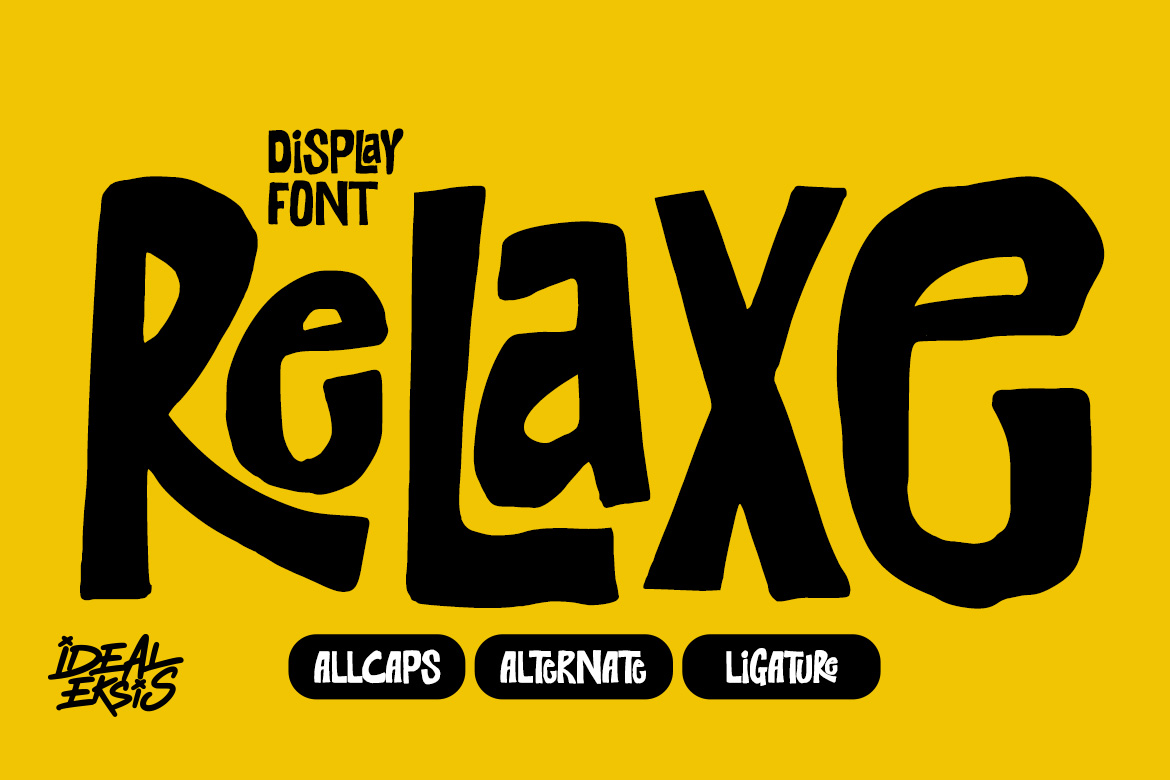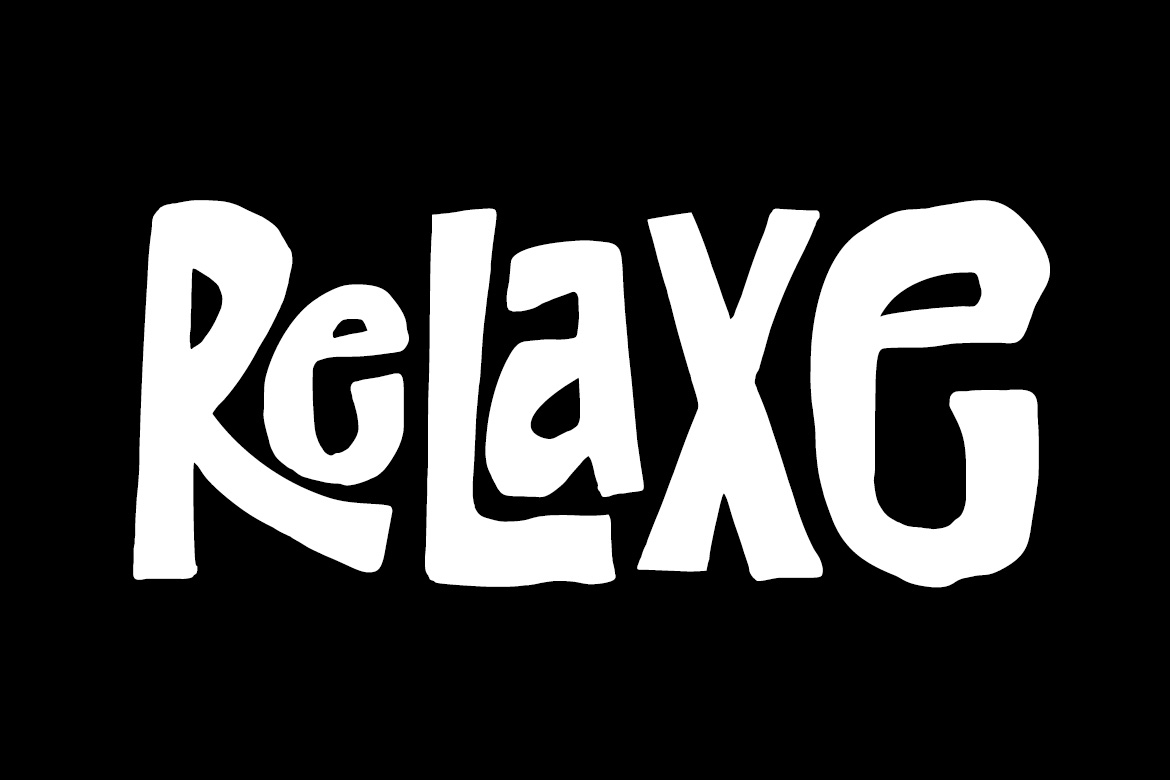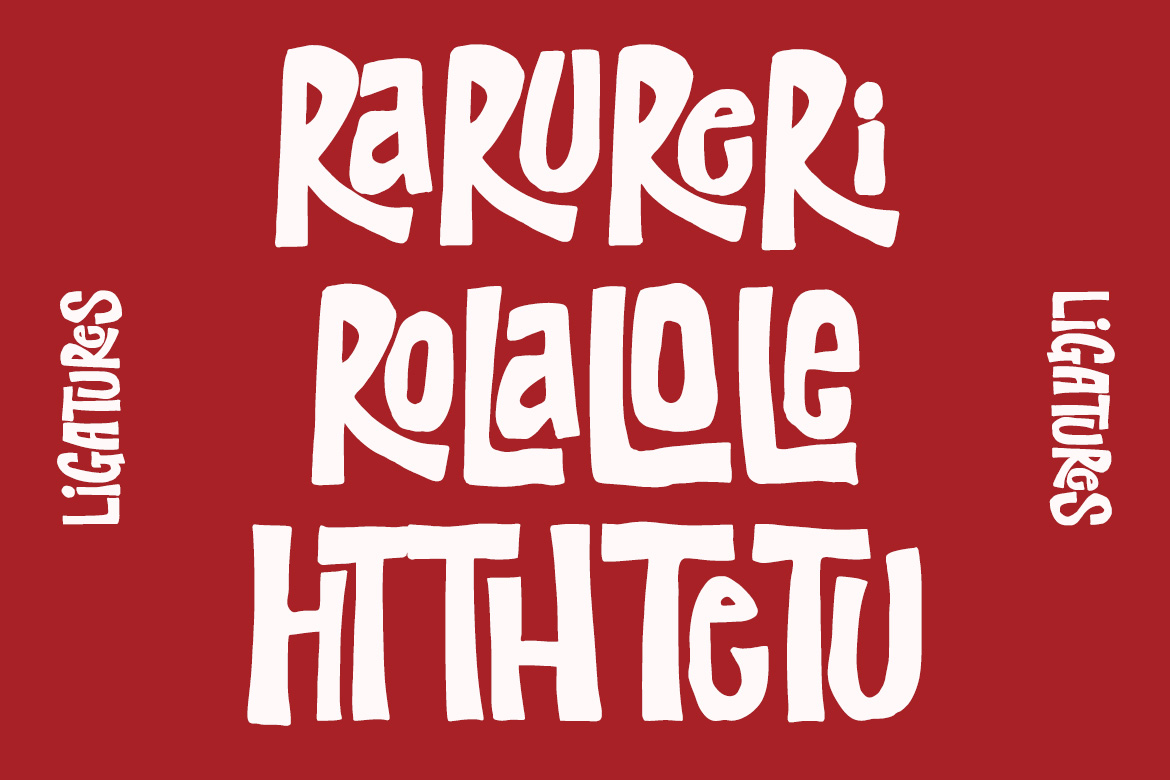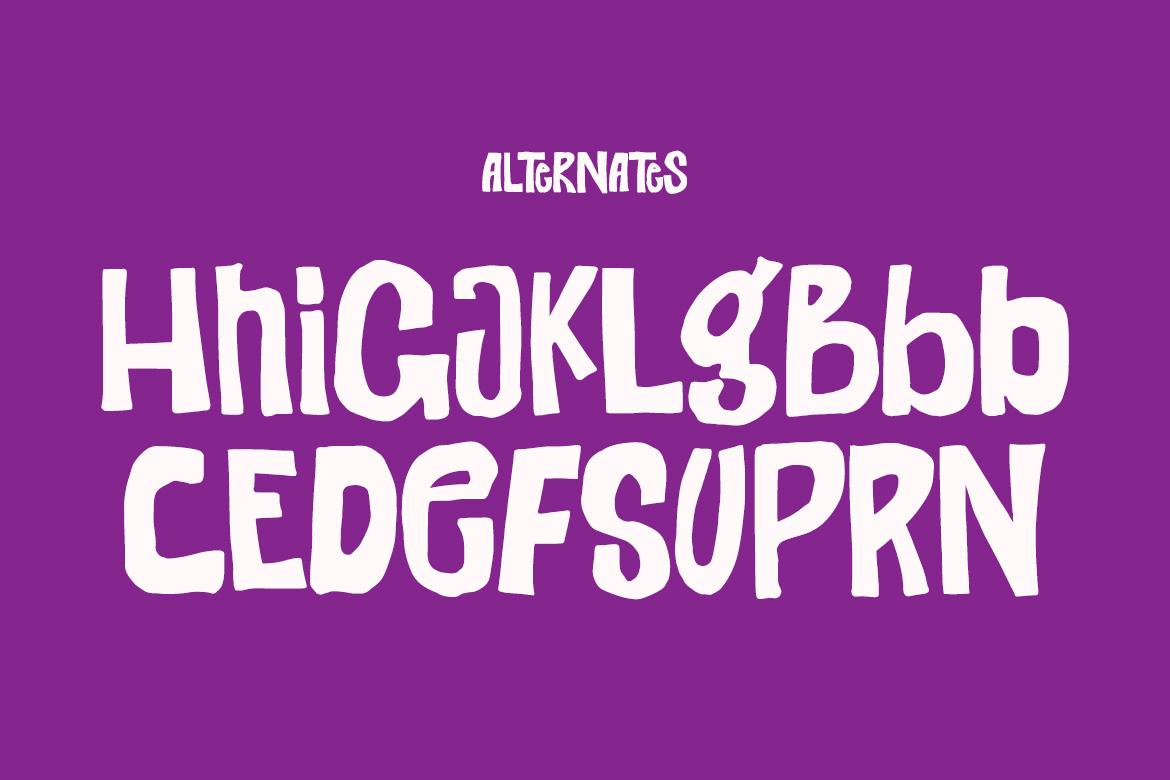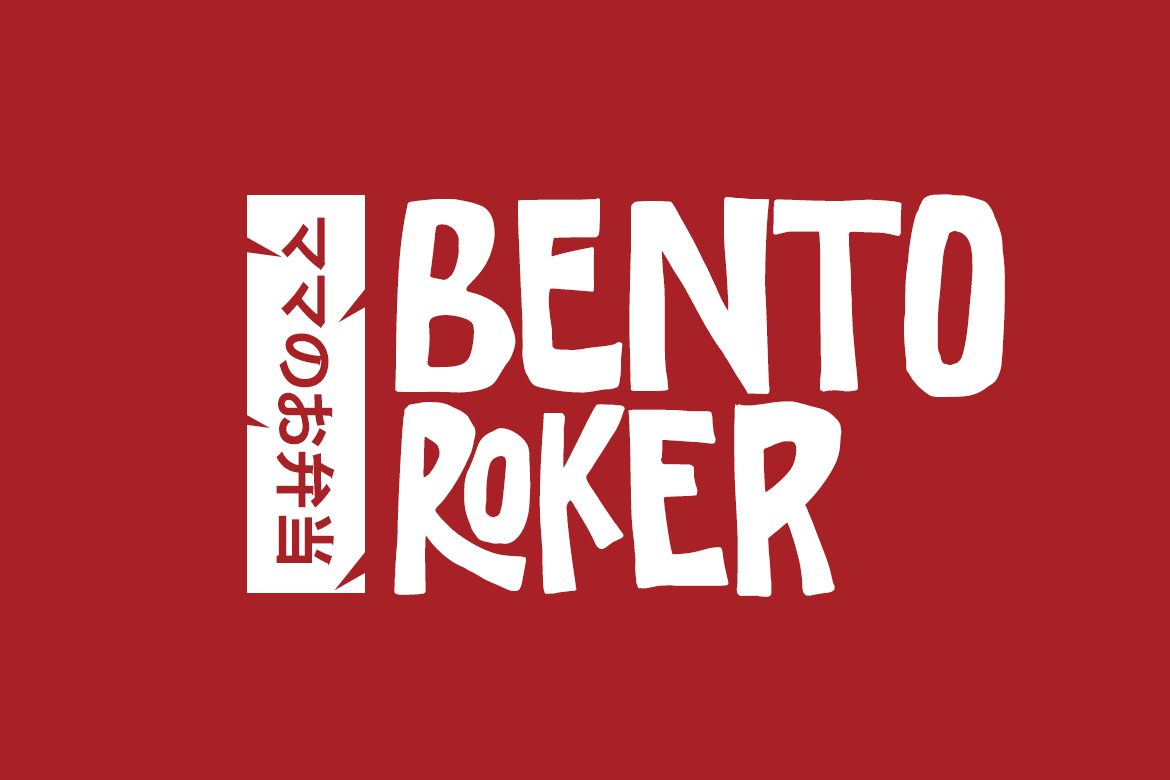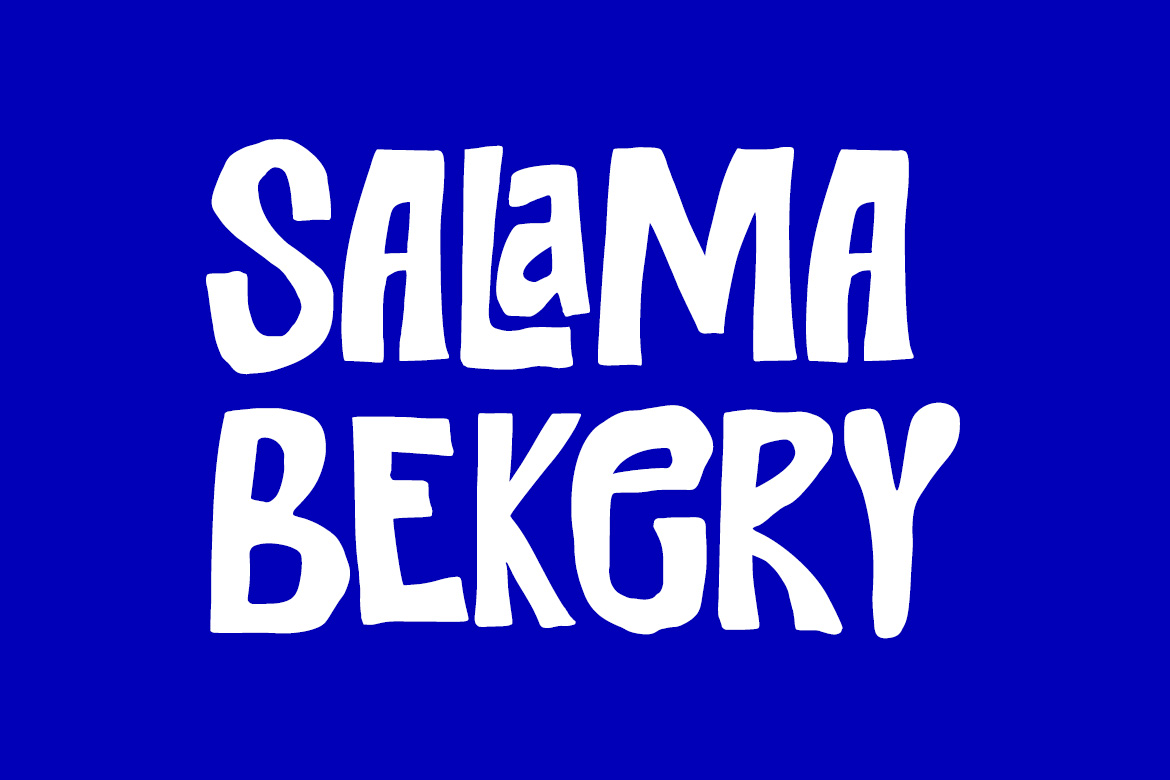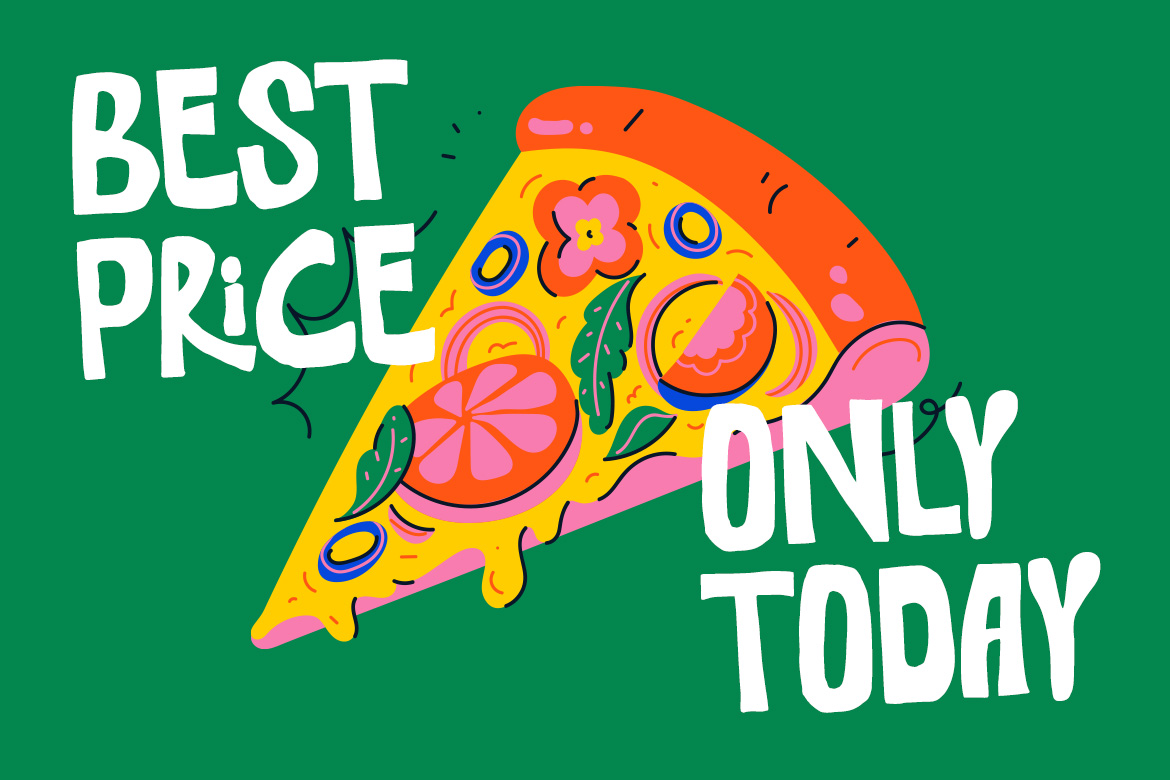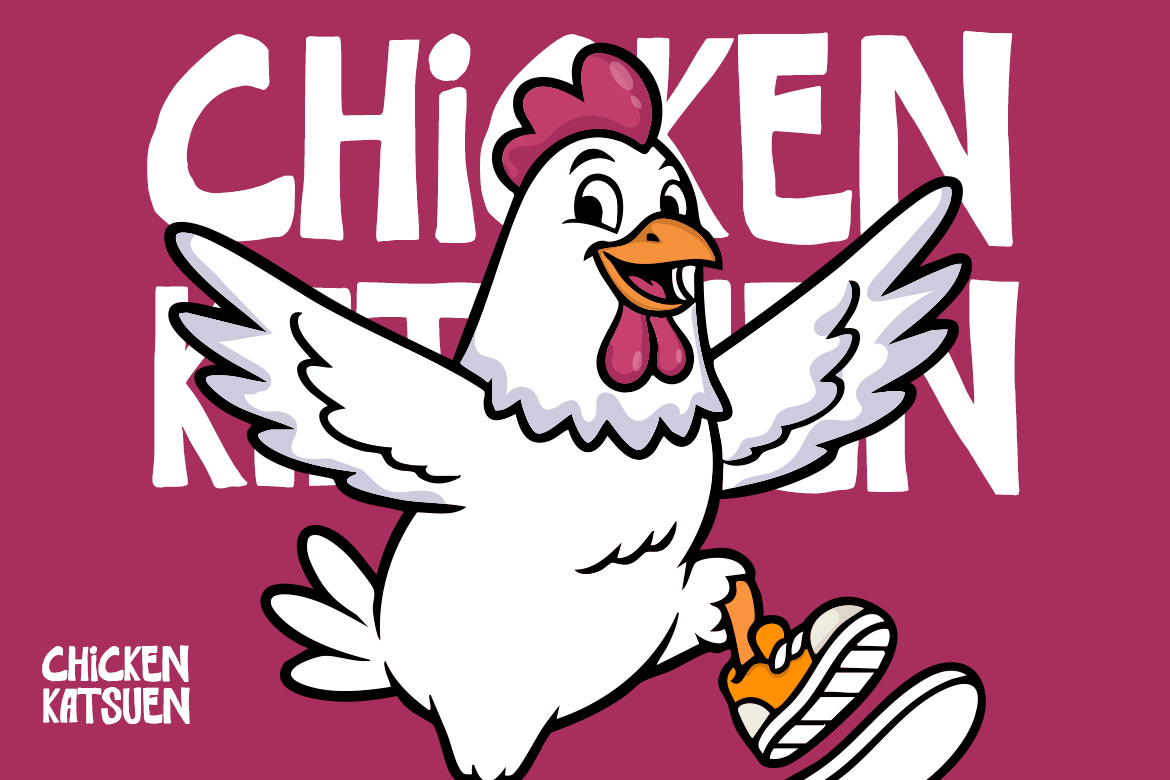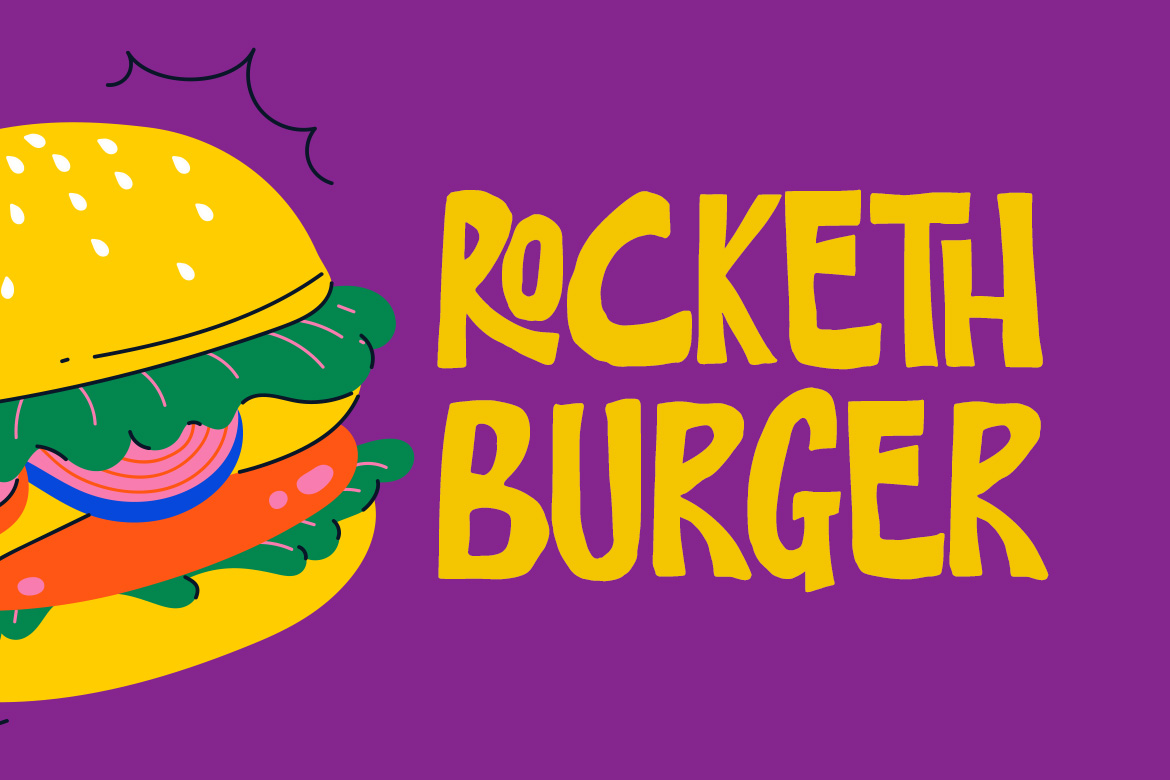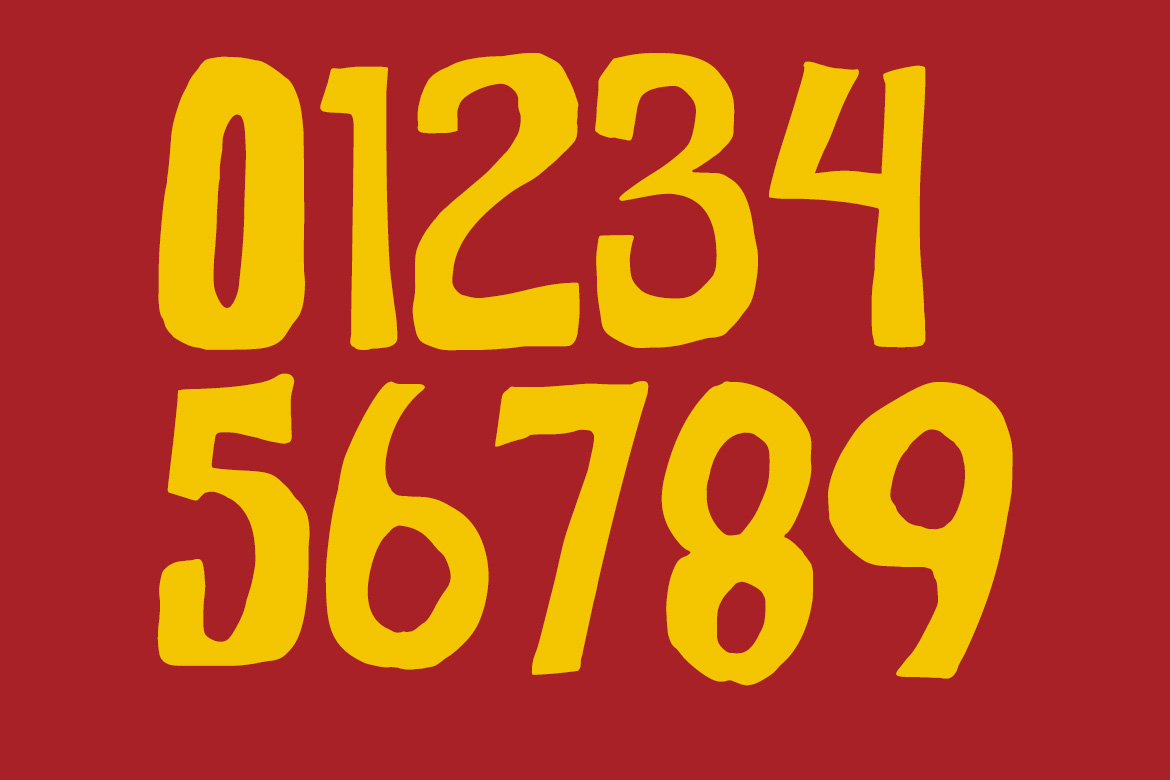
Display typeface · Latin
Relaxe
Relaxe is a bold and funky display with a casual retro feel and playful curves. Designed to bring energy and character to any layout, it’s perfect for posters, packaging, logos, social media, and creative projects that need a vibrant, laid-back vibe. In Package : OTF TTF WOFF WOFF2 Feature : Uppercase (ALLCAPS) +Alternates Ligatures Numerals Punctuation Easy To Install